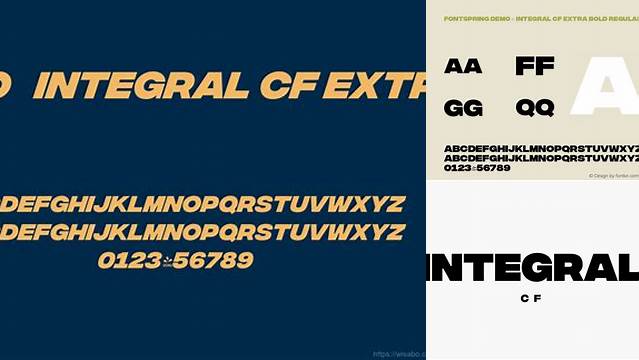
Integral CF Extra Bold Font: Fontspring Demo & Usage
Hey guys! Ever stumbled upon a font that just screams awesome? That's how I felt when I first saw Integral CF Extra Bold. This font is a powerhouse, perfect for grabbing attention and making a statement. In this article, we're diving deep into the world of Integral CF Extra Bold, exploring its features, how to snag the Fontspring demo, and ways to use it in your projects. Get ready to unleash some serious font power!
What Makes Integral CF Extra Bold So Special?
Integral CF Extra Bold isn't just another bold font; it's a carefully crafted typeface designed to make an impact. Its strong, clean lines and substantial weight give it a commanding presence, making it ideal for headlines, posters, and branding materials. The beauty of Integral CF Extra Bold lies in its versatility. It's bold enough to stand out, yet refined enough to maintain legibility even at smaller sizes. This balance makes it a go-to choice for designers looking to add a touch of modern sophistication to their work. Plus, the geometric structure gives it a contemporary feel that's perfect for a wide range of applications. So, if you're looking for a font that's both powerful and elegant, Integral CF Extra Bold might just be your new best friend.
Using Integral CF Extra Bold for Headlines
When it comes to headlines, Integral CF Extra Bold is a total rockstar. Its bold weight and clean lines command attention, making it perfect for drawing the reader's eye and setting the tone for your content. Think about it: a strong headline is the first impression your message makes, and this font ensures it's a memorable one. Whether you're designing a website, a poster, or a social media graphic, using Integral CF Extra Bold for your headlines can instantly elevate the visual impact. The key is to use it strategically. Don't be afraid to let it be the star of the show, pairing it with a simpler body font for maximum contrast and readability. A well-crafted headline in this font can transform your message from bland to bam! So, if you're looking to make a statement, Integral CF Extra Bold is your headline hero.
Body Text: Is Integral CF Extra Bold a Good Choice?
Okay, let's talk body text. While Integral CF Extra Bold shines as a headline font, using it for large blocks of body text can be a bit…intense. Its extra bold weight, while fantastic for grabbing attention, can become tiring on the eyes when used extensively. Think of it like shouting – it's effective in short bursts, but you wouldn't want to listen to someone yelling for hours, right? That being said, there are exceptions. For short bursts of text, like captions or callouts, Integral CF Extra Bold can work wonders. However, for longer paragraphs, you'll want to opt for a more legible and comfortable font. A good rule of thumb is to save the boldness for where you really want to make an impact and choose a more restrained typeface for the main body of your content. It's all about balance, guys!
Integral CF Extra Bold for Branding
Branding is all about making a lasting impression, and Integral CF Extra Bold is a branding powerhouse. Its strong, modern aesthetic can inject personality and memorability into your brand identity. Imagine a logo crafted with this font – it instantly conveys confidence and authority. But branding goes beyond just logos. Integral CF Extra Bold can be incorporated into your website design, marketing materials, and even your social media graphics. The key is to use it consistently to create a cohesive and recognizable brand image. Think about brands like Adidas or Netflix – their use of specific fonts is a huge part of their visual identity. Integral CF Extra Bold has the potential to become just as iconic for your brand. Just remember to consider your brand's personality and target audience to ensure it's the right fit. A bold move can pay off big time in the branding game!
Pairing Integral CF Extra Bold with Other Fonts
The beauty of typography lies in the art of pairing fonts. Integral CF Extra Bold, with its strong personality, needs a partner that complements its boldness without overshadowing it. Think of it like a dynamic duo – each font brings its own strengths to the table. Generally, pairing a bold font like Integral CF Extra Bold with a simpler, more legible font for body text is a winning strategy. This creates a visual hierarchy that guides the reader's eye and ensures readability. Some popular pairings include sans-serif fonts like Open Sans or Lato, or even a classic serif like Merriweather for a touch of elegance. The key is to create contrast while maintaining harmony. Experiment with different combinations to find what works best for your design. Don't be afraid to mix and match, guys! You might just stumble upon your next favorite font pairing.
Designing Logos with Integral CF Extra Bold
When it comes to logo design, Integral CF Extra Bold is a force to be reckoned with. Its strong, geometric forms lend themselves perfectly to creating impactful and memorable logos. The boldness of the font ensures that your logo will stand out, while its clean lines give it a modern and professional feel. But designing a logo isn't just about slapping a font on a page. Consider the overall message you want to convey. Integral CF Extra Bold works particularly well for brands that want to project confidence, strength, and innovation. Think tech companies, fitness brands, or even modern financial institutions. Experiment with different letter combinations, weights, and even incorporating graphic elements to create a unique and ownable logo. A well-designed logo using Integral CF Extra Bold can be a powerful asset for your brand. It's the visual representation of your identity, so make it count!
Creating Eye-Catching Posters with Integral CF Extra Bold
Need to grab attention from across the room? Integral CF Extra Bold is your poster's secret weapon. Its bold weight and commanding presence make it perfect for headlines and call-to-actions. Think about it: a poster needs to make an instant impact, and this font delivers. Imagine a concert poster with the band's name emblazoned in Integral CF Extra Bold – it's hard to miss! The key to using this font effectively on posters is to keep things simple and impactful. Don't overcrowd your design with too much text. Let the font do the talking. Experiment with different colors, sizes, and placements to create a visually dynamic poster that screams